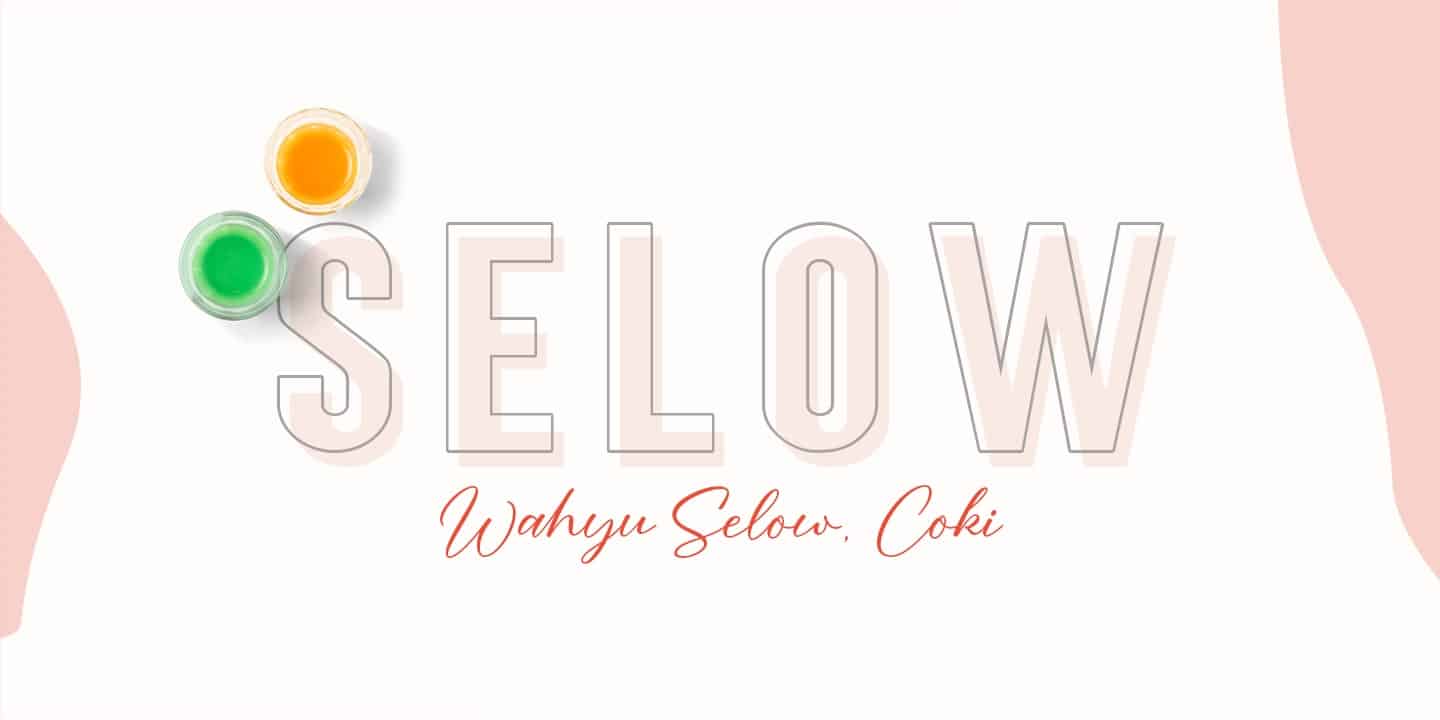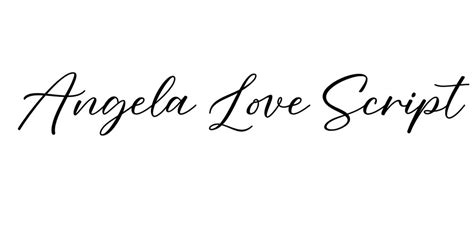
Angela Love Sans Regular Font Free Download - The author works at company fargun studio. Angela love sans italic • italic variations are included. Angela love sans is the perfect font for all your fun designs. The angela love sans font was designed by fargun studio. Web angela love sans outline • a thick outlined version of angela love sans, pair this with other angela love sans fonts to add emphasis to words or phrases. With 4 clean sans fonts and 1 modern script fonts, angela love gives. Web dec 23, 2021 introducing angela love a modern combination of 5 fonts, each carefully designed to naturally complement one another. Angelalovesans by copyright (c) 2019 by. Web dec 18 2019 download font angelalovesans font 2.84/5 13131 votes, rated based on results identification download angelalovesans font. It is so beautiful and classy.
Web dec 23, 2021 introducing angela love a modern combination of 5 fonts, each carefully designed to naturally complement one another. Web angela love sans outline • a thick outlined version of angela love sans, pair this with other angela love sans fonts to add emphasis to words or phrases. With 4 clean sans fonts and 1 modern script fonts, angela love gives. Web dec 18 2019 download font angelalovesans font 2.84/5 13131 votes, rated based on results identification download angelalovesans font. Angelalovesans by copyright (c) 2019 by. Angela love sans is the perfect font for all your fun designs. It is so beautiful and classy. The author works at company fargun studio. Angela love sans italic • italic variations are included. The angela love sans font was designed by fargun studio.
Angela love sans is the perfect font for all your fun designs. Web dec 23, 2021 introducing angela love a modern combination of 5 fonts, each carefully designed to naturally complement one another. Angelalovesans by copyright (c) 2019 by. The angela love sans font was designed by fargun studio. Angela love sans italic • italic variations are included. The author works at company fargun studio. It is so beautiful and classy. With 4 clean sans fonts and 1 modern script fonts, angela love gives. Web angela love sans outline • a thick outlined version of angela love sans, pair this with other angela love sans fonts to add emphasis to words or phrases. Web dec 18 2019 download font angelalovesans font 2.84/5 13131 votes, rated based on results identification download angelalovesans font.
Angela Love Sans Font
It is so beautiful and classy. Web dec 18 2019 download font angelalovesans font 2.84/5 13131 votes, rated based on results identification download angelalovesans font. Angela love sans italic • italic variations are included. Web angela love sans outline • a thick outlined version of angela love sans, pair this with other angela love sans fonts to add emphasis to.
Angela love sans italic • italic variations are included. Web dec 18 2019 download font angelalovesans font 2.84/5 13131 votes, rated based on results identification download angelalovesans font. The author works at company fargun studio. Web angela love sans outline • a thick outlined version of angela love sans, pair this with other angela love sans fonts to add emphasis.
It is so beautiful and classy. Web dec 23, 2021 introducing angela love a modern combination of 5 fonts, each carefully designed to naturally complement one another. The author works at company fargun studio. Angela love sans is the perfect font for all your fun designs. With 4 clean sans fonts and 1 modern script fonts, angela love gives.
It is so beautiful and classy. The angela love sans font was designed by fargun studio. Web angela love sans outline • a thick outlined version of angela love sans, pair this with other angela love sans fonts to add emphasis to words or phrases. With 4 clean sans fonts and 1 modern script fonts, angela love gives. Angelalovesans by.
It is so beautiful and classy. Angelalovesans by copyright (c) 2019 by. Angela love sans is the perfect font for all your fun designs. The author works at company fargun studio. Angela love sans italic • italic variations are included.
Web dec 23, 2021 introducing angela love a modern combination of 5 fonts, each carefully designed to naturally complement one another. It is so beautiful and classy. Angela love sans is the perfect font for all your fun designs. Web dec 18 2019 download font angelalovesans font 2.84/5 13131 votes, rated based on results identification download angelalovesans font. The angela.
Angela Love Script & Sans Download Free Fonts
Web dec 23, 2021 introducing angela love a modern combination of 5 fonts, each carefully designed to naturally complement one another. Web dec 18 2019 download font angelalovesans font 2.84/5 13131 votes, rated based on results identification download angelalovesans font. Angelalovesans by copyright (c) 2019 by. Web angela love sans outline • a thick outlined version of angela love sans,.
Angela Sans Regular Download For Free, View Sample Text, Rating And
The author works at company fargun studio. Angela love sans is the perfect font for all your fun designs. With 4 clean sans fonts and 1 modern script fonts, angela love gives. Web angela love sans outline • a thick outlined version of angela love sans, pair this with other angela love sans fonts to add emphasis to words or.
Angela Love Script & Sans by fargunstudio GraphicRiver
The angela love sans font was designed by fargun studio. It is so beautiful and classy. Web dec 18 2019 download font angelalovesans font 2.84/5 13131 votes, rated based on results identification download angelalovesans font. Angelalovesans by copyright (c) 2019 by. Angela love sans italic • italic variations are included.
Angela Love Script & Sans Download Free Fonts
Web dec 18 2019 download font angelalovesans font 2.84/5 13131 votes, rated based on results identification download angelalovesans font. Angela love sans italic • italic variations are included. Web angela love sans outline • a thick outlined version of angela love sans, pair this with other angela love sans fonts to add emphasis to words or phrases. The angela love.
The Angela Love Sans Font Was Designed By Fargun Studio.
Web angela love sans outline • a thick outlined version of angela love sans, pair this with other angela love sans fonts to add emphasis to words or phrases. The author works at company fargun studio. With 4 clean sans fonts and 1 modern script fonts, angela love gives. Angela love sans italic • italic variations are included.
Web Dec 23, 2021 Introducing Angela Love A Modern Combination Of 5 Fonts, Each Carefully Designed To Naturally Complement One Another.
It is so beautiful and classy. Web dec 18 2019 download font angelalovesans font 2.84/5 13131 votes, rated based on results identification download angelalovesans font. Angela love sans is the perfect font for all your fun designs. Angelalovesans by copyright (c) 2019 by.